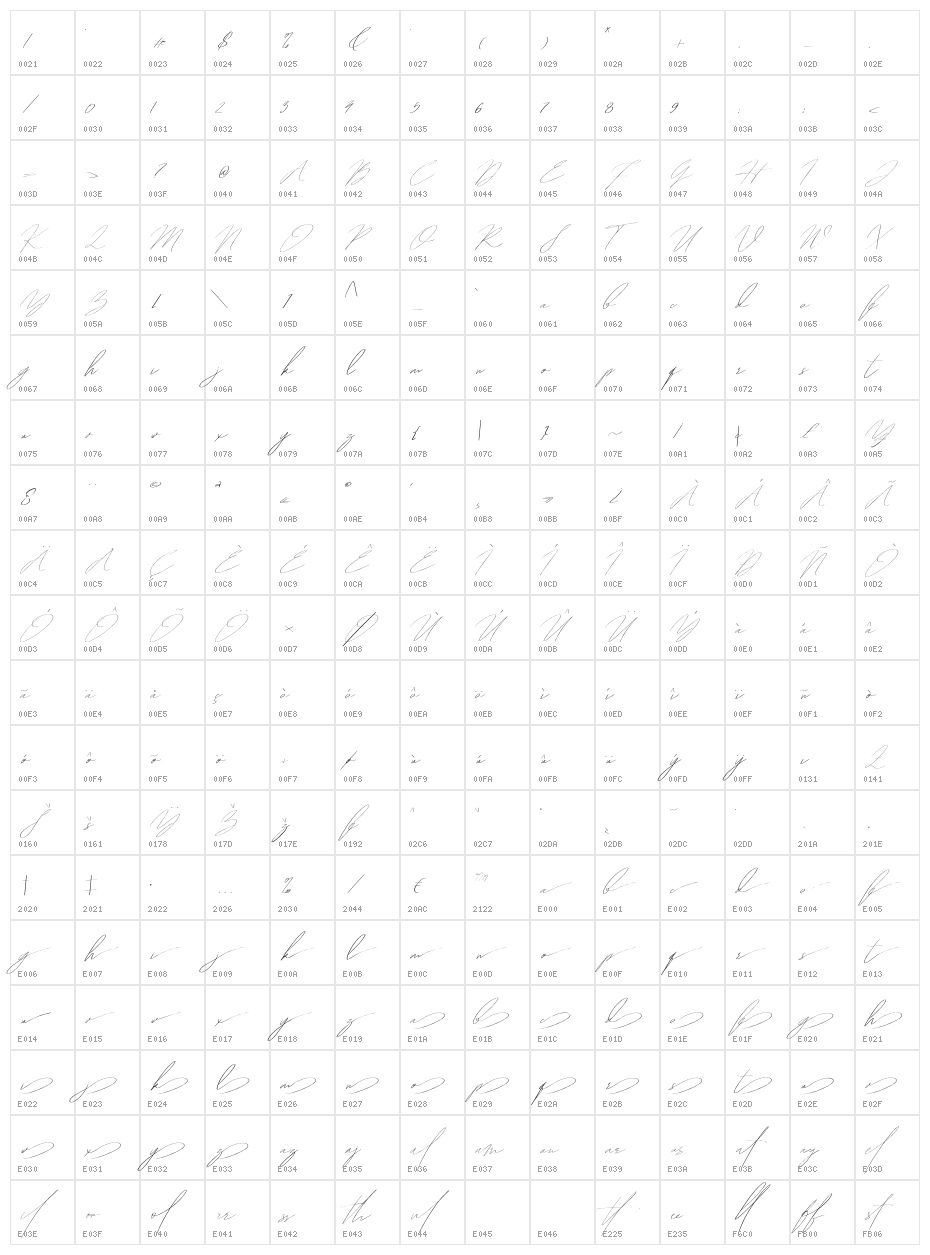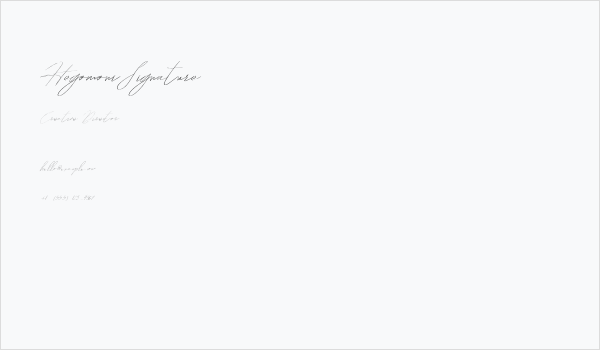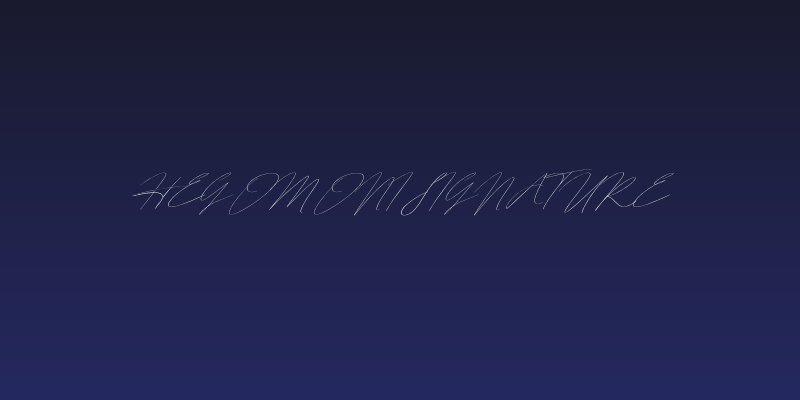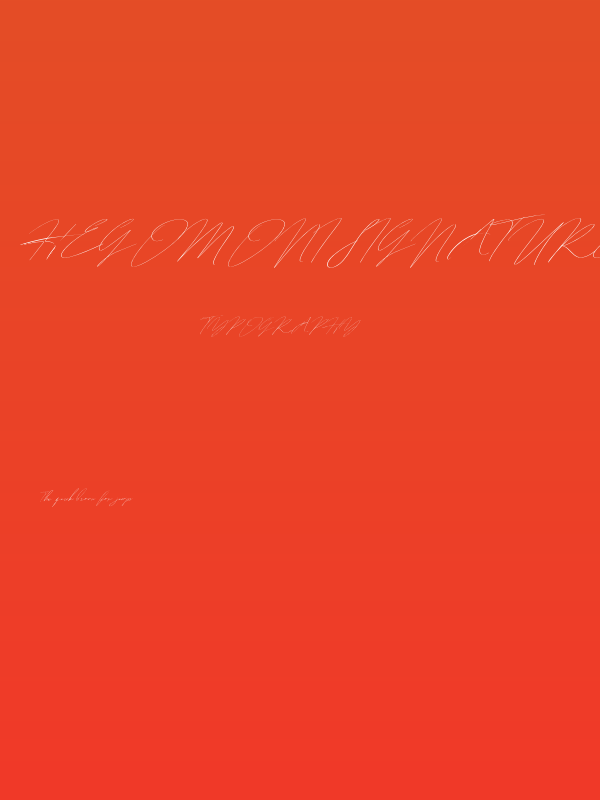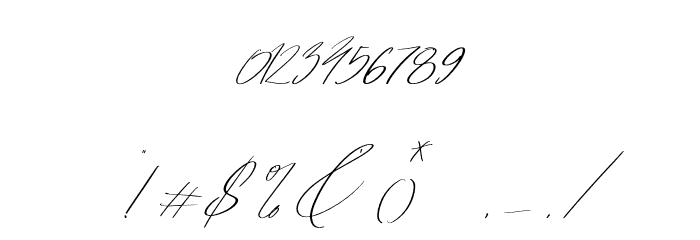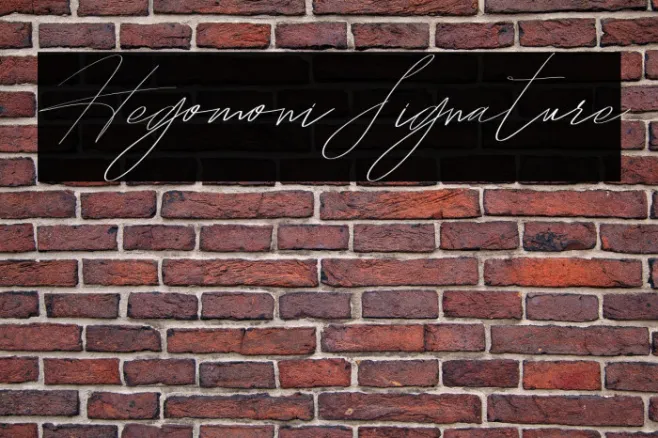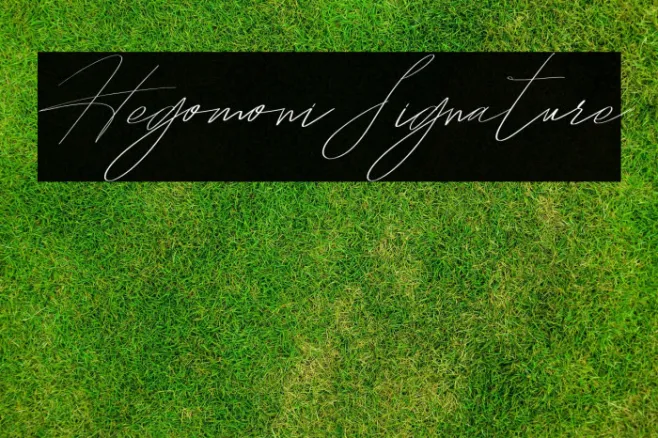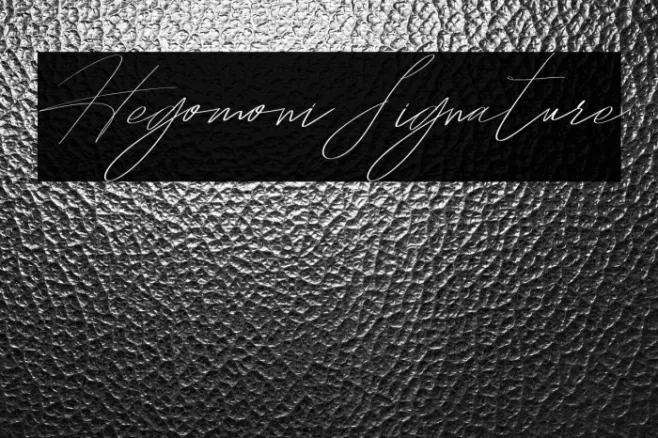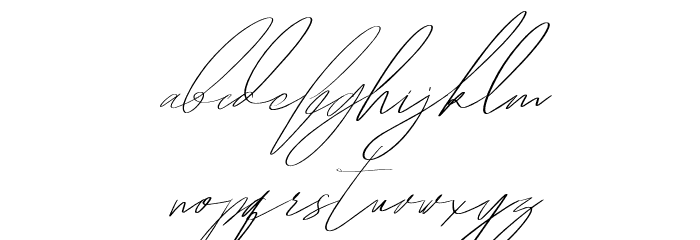
HegomoniSignature Font
HegomoniSignature Description
This elegant script font features a flowing, cursive style that mimics the fluidity of a handwritten signature. The uppercase letters are characterized by their elongated and graceful strokes, while the lowercase letters maintain a consistent, smooth flow. The numbers and special characters are designed to complement the overall aesthetic, adding a touch of sophistication. The font's thin lines and delicate curves give it a refined and stylish appearance, making it ideal for projects that require a personal and elegant touch.